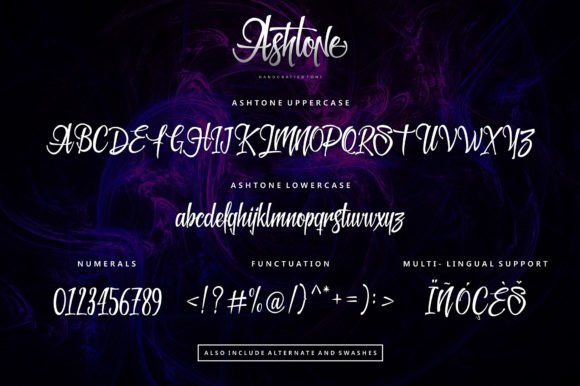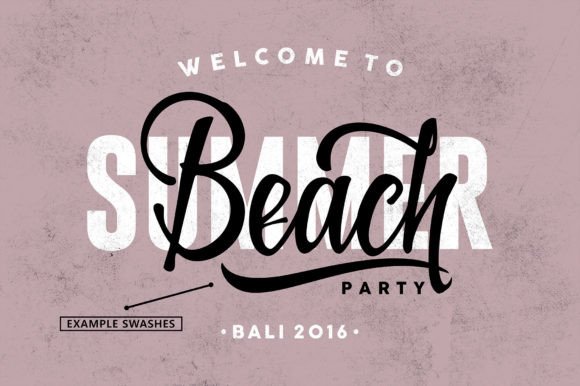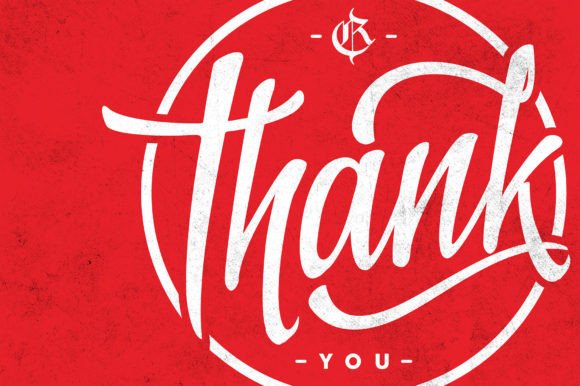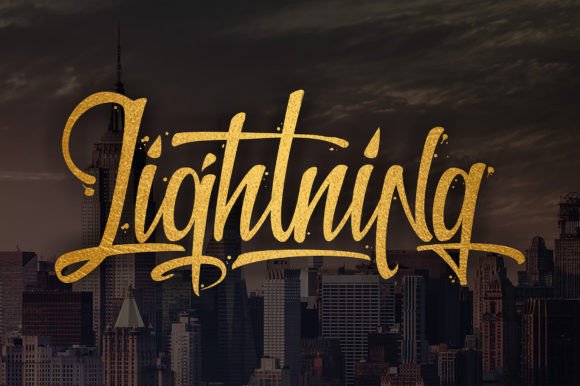
Introducing Ashtone Font: Elevate Your Designs with Elegance
Are you on the lookout for a font that can add a touch of sophistication and elegance to your designs? Look no further than Ashtone Font, a beautiful new handwritten font that’s perfect for a wide range of creative projects. Whether you’re a designer, crafter, or DIY enthusiast, Ashtone Font is sure to become your go-to choice for creating stunning visual content.
What Makes Ashtone Font So Special?
Ashtone Font is a carefully crafted handwritten font that’s designed to bring a sense of luxury and refinement to your designs. Its elegant strokes, precise lettering, and flowing curves make it perfect for creating eye-catching logos, cards, T-shirts, shopping bags, book titles, magazine covers, and so much more.
Endless Design Possibilities with Ashtone Font
One of the best things about Ashtone Font is its versatility. This amazing font can be used in a multitude of design projects, including:
- Logos: Create a lasting impression with a custom logo that exudes elegance and sophistication.
- Cards: Design beautiful greeting cards, invitations, and postcards that will make your recipients feel special.
- T-shirts and Apparel: Add a touch of style to your clothing and accessories with Ashtone Font.
- Shopping Bags: Elevate your brand’s packaging with a custom shopping bag design that stands out.
- Book Titles and Magazine Covers: Create stunning book titles and magazine covers that grab attention.
Why Choose Ashtone Font?
So, what sets Ashtone Font apart from other fonts on the market? Here are just a few reasons why designers and crafters love Ashtone Font:
- Elegant and Sophisticated: Ashtone Font adds a touch of luxury to any design.
- Easy to Read: The font’s clear and precise lettering ensures that your message is conveyed clearly.
- Highly Versatile: Use Ashtone Font in a wide range of design projects, from logos to book titles.
- Unique and Creative: Stand out from the crowd with a font that’s both stylish and distinctive.
Tips for Using Ashtone Font Effectively
To get the most out of Ashtone Font, here are a few tips to keep in mind:
- Experiment with Colors: Pair Ashtone Font with a range of colors to create different moods and effects.
- Play with Sizes: Use Ashtone Font in various sizes to create visual hierarchy and emphasis.
- Mix and Match: Combine Ashtone Font with other fonts to create unique and interesting typography.
| Font Name | Ashtone Font |
| Author | Rvq Type Foundry |